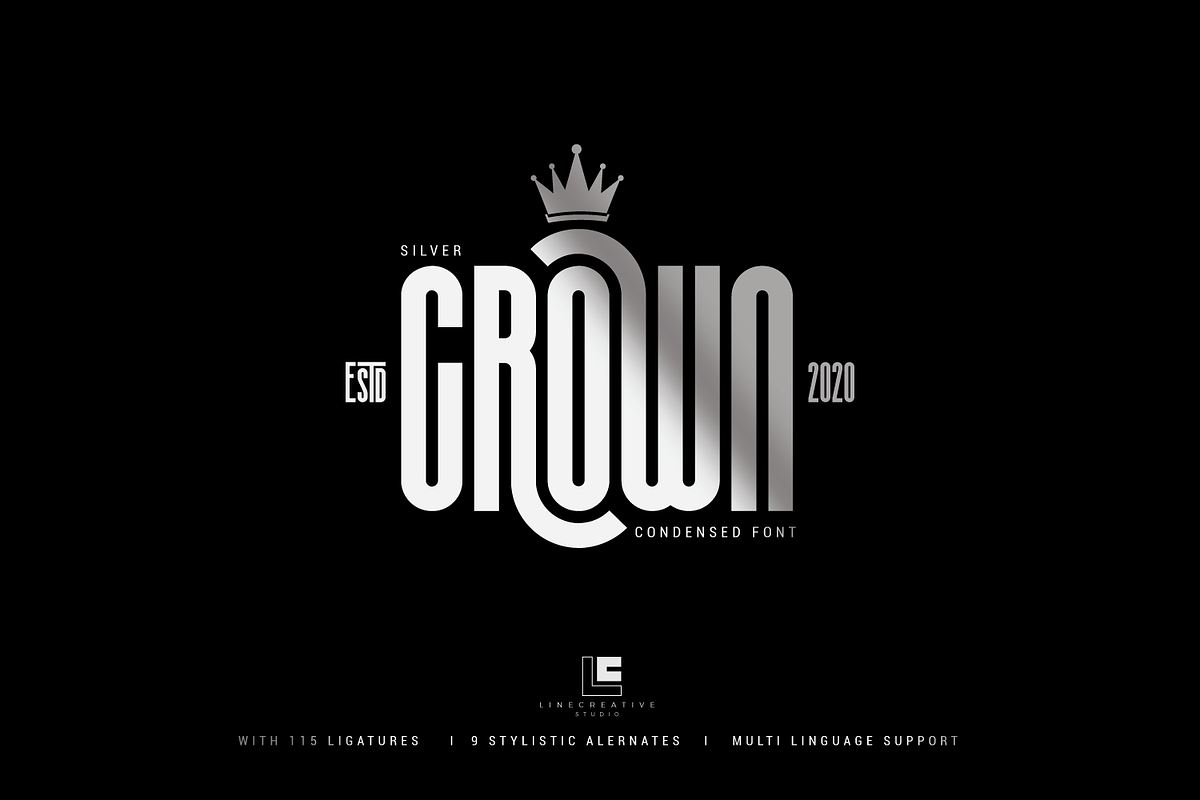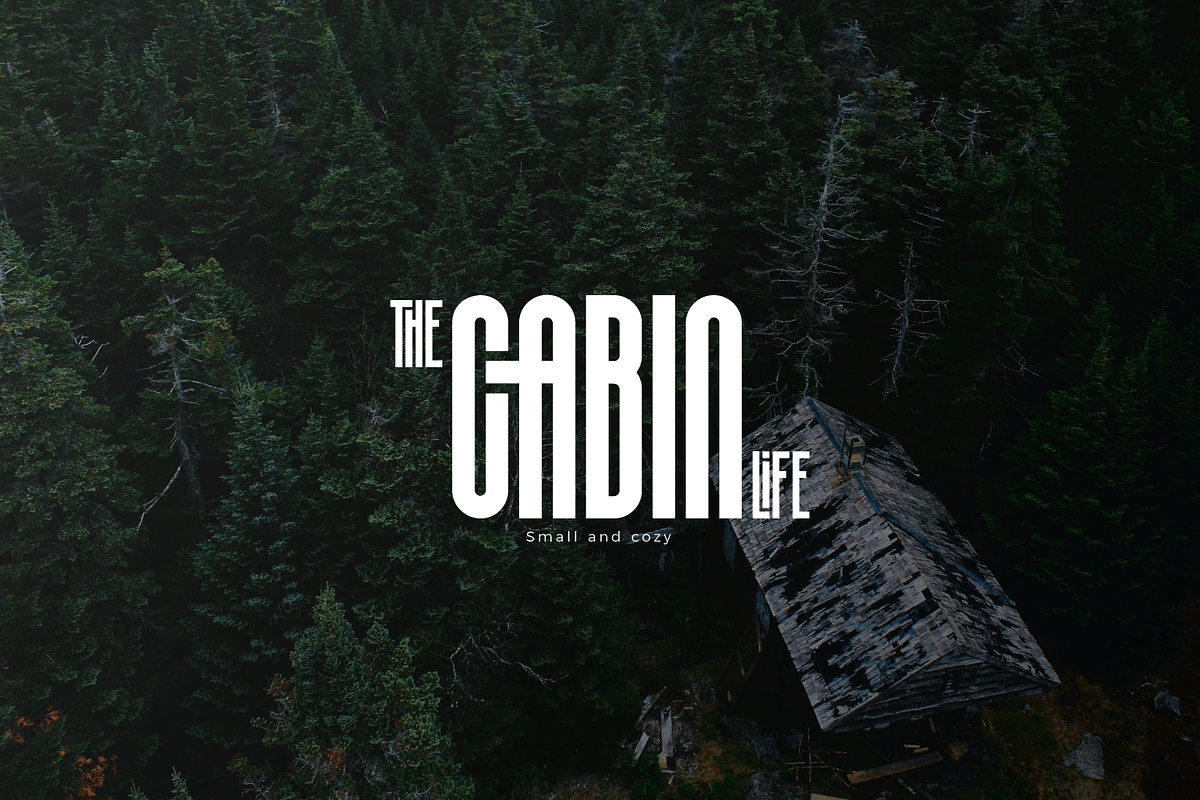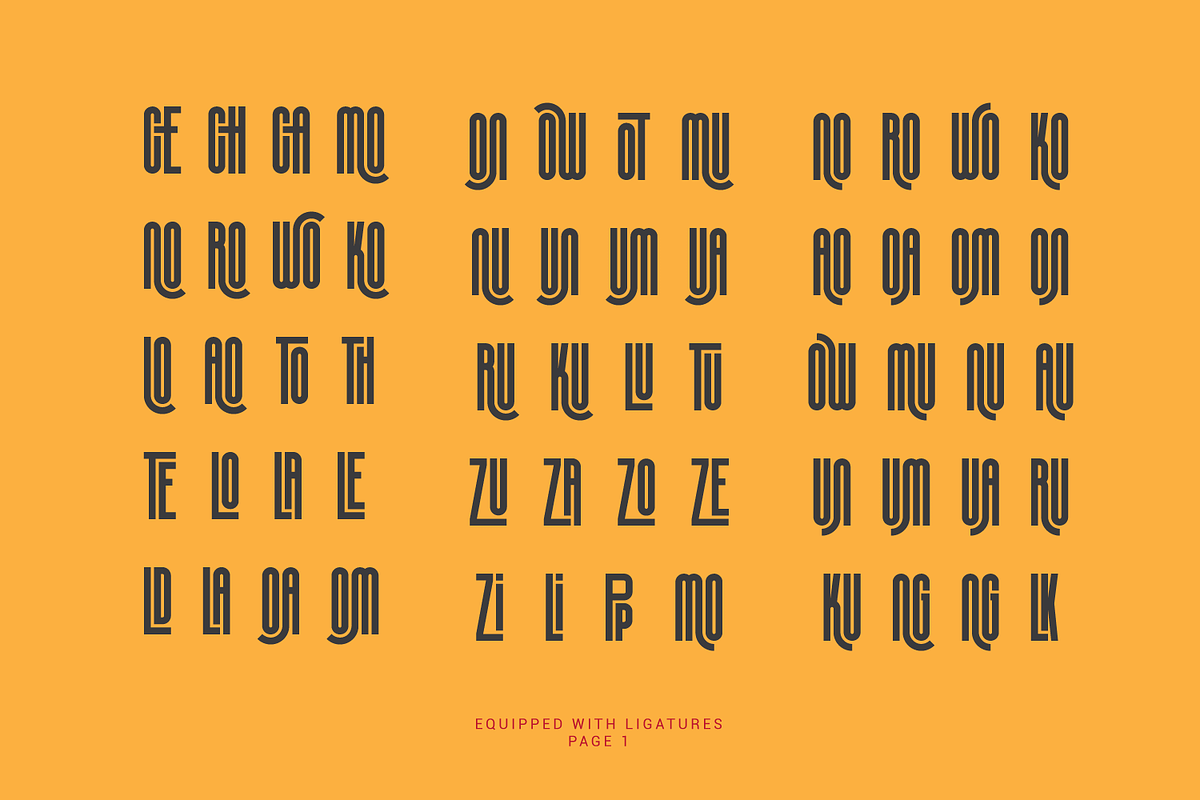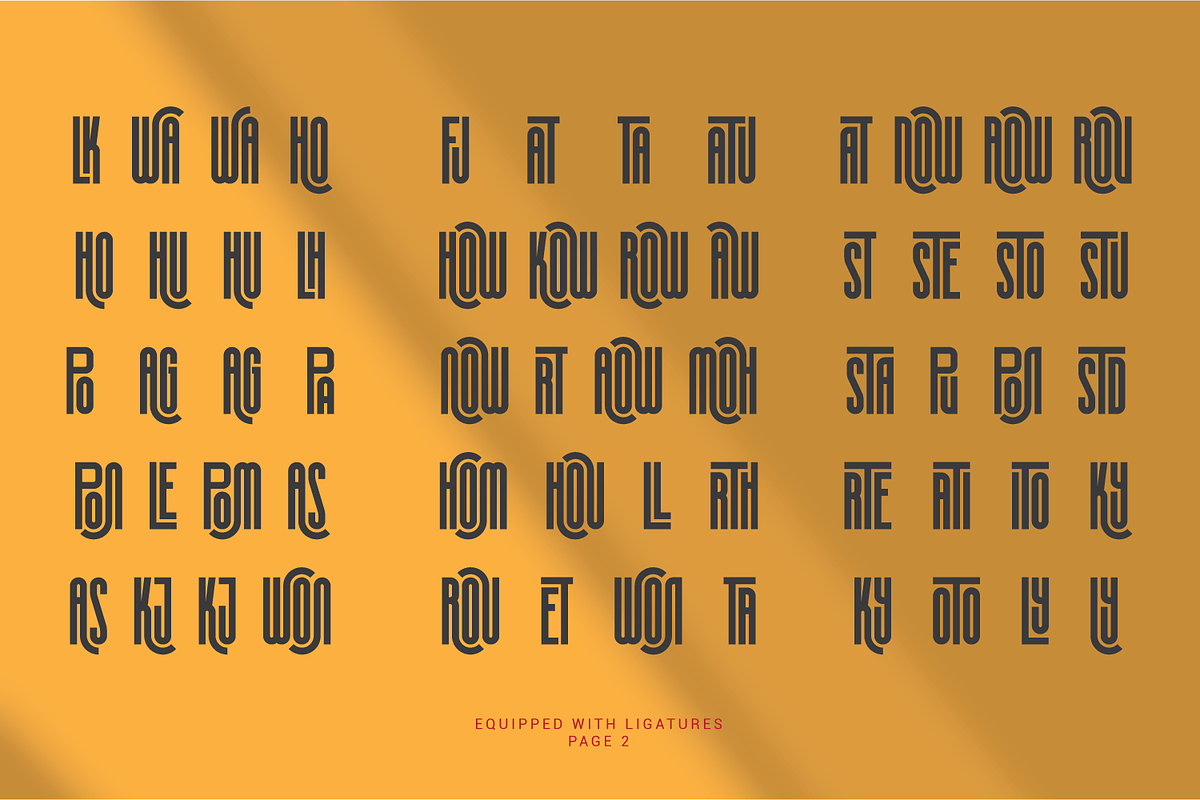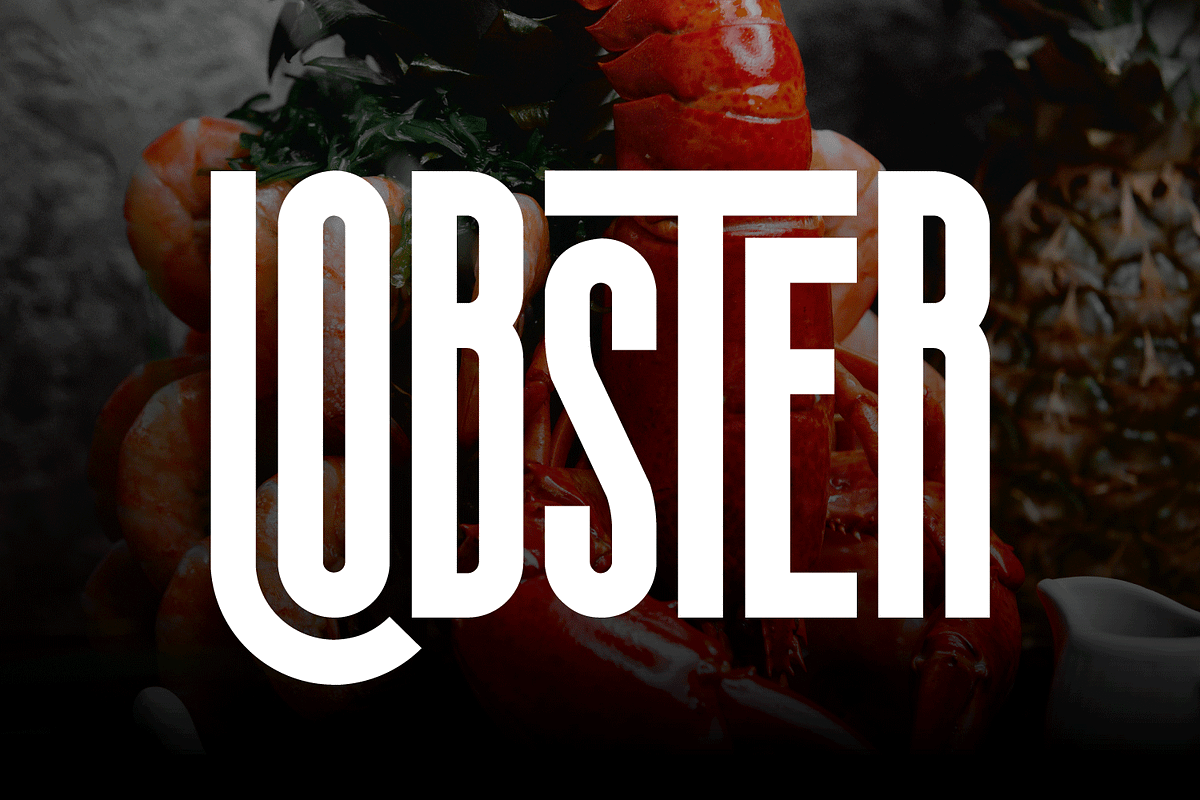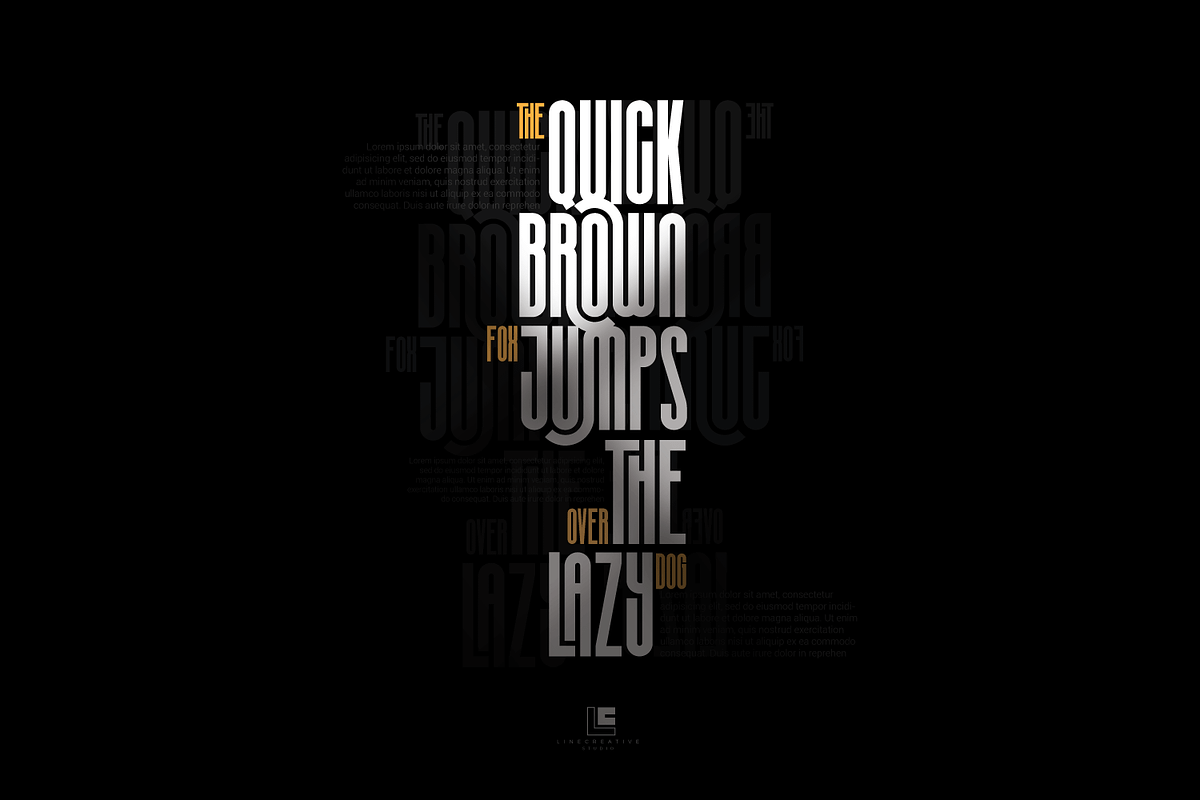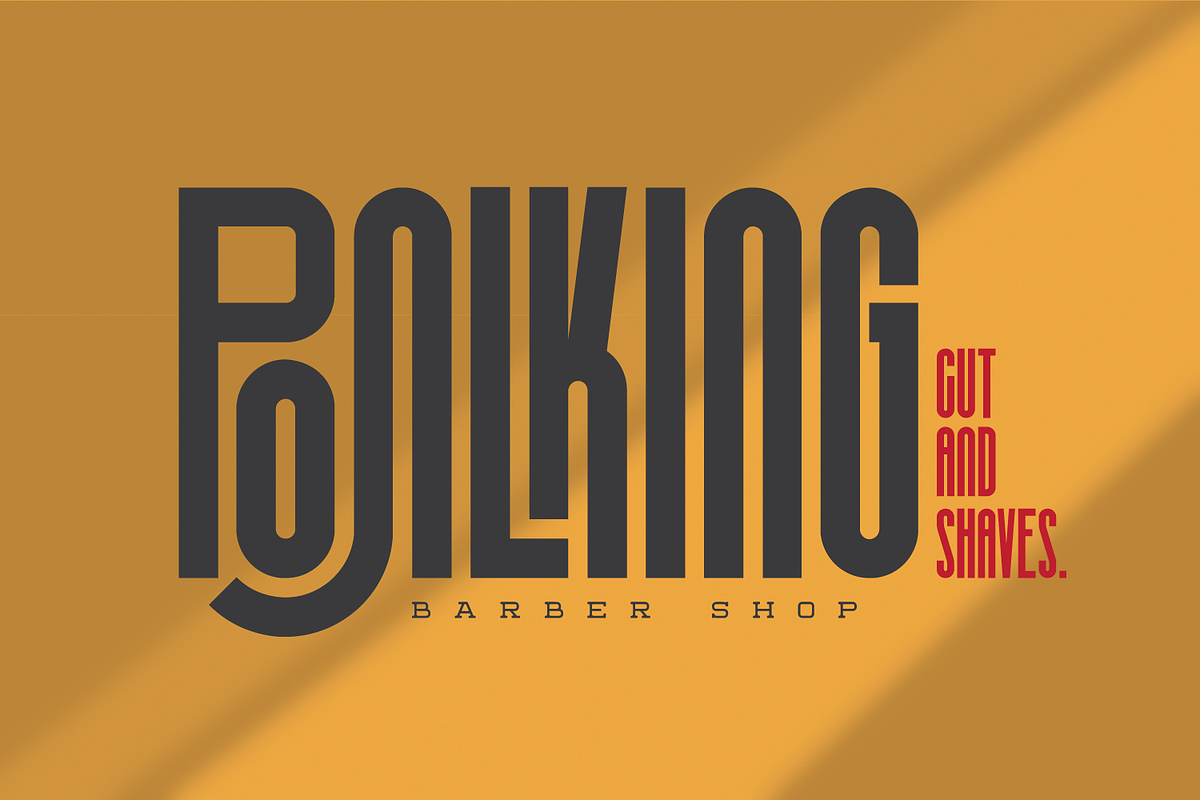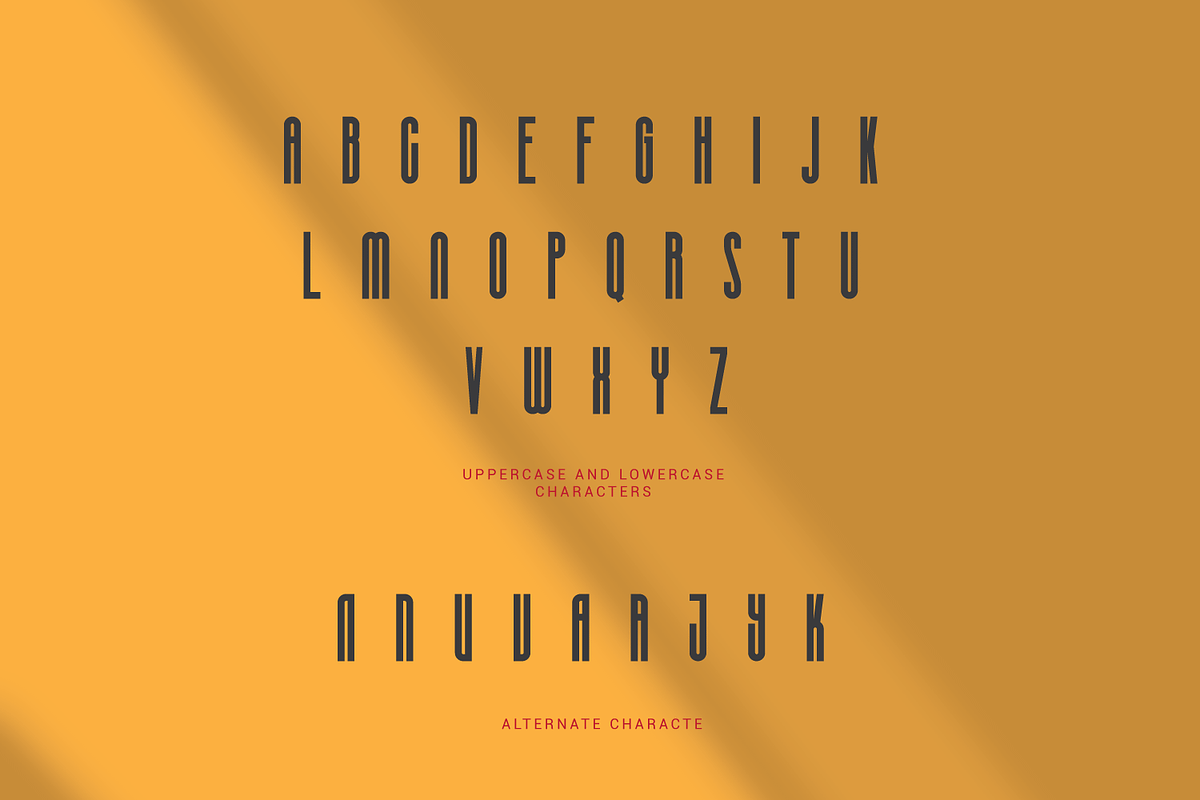
Silver Crown - Ultra Condensed Font
Silver Crown - Ultra Condensend font and Minimalis Character, It's Perfect for logo, name card, magazin layout,headers, or oven large scale artwork
Silver Crown- A clean San serif font including Upper & Lowercase characters(ALL CAPS),
Ligatures Character(121 characters) & Stylistic alternates Character (9 Character)
Supports Multi linguage (Latin Western Europe), Numbers and Punctuation